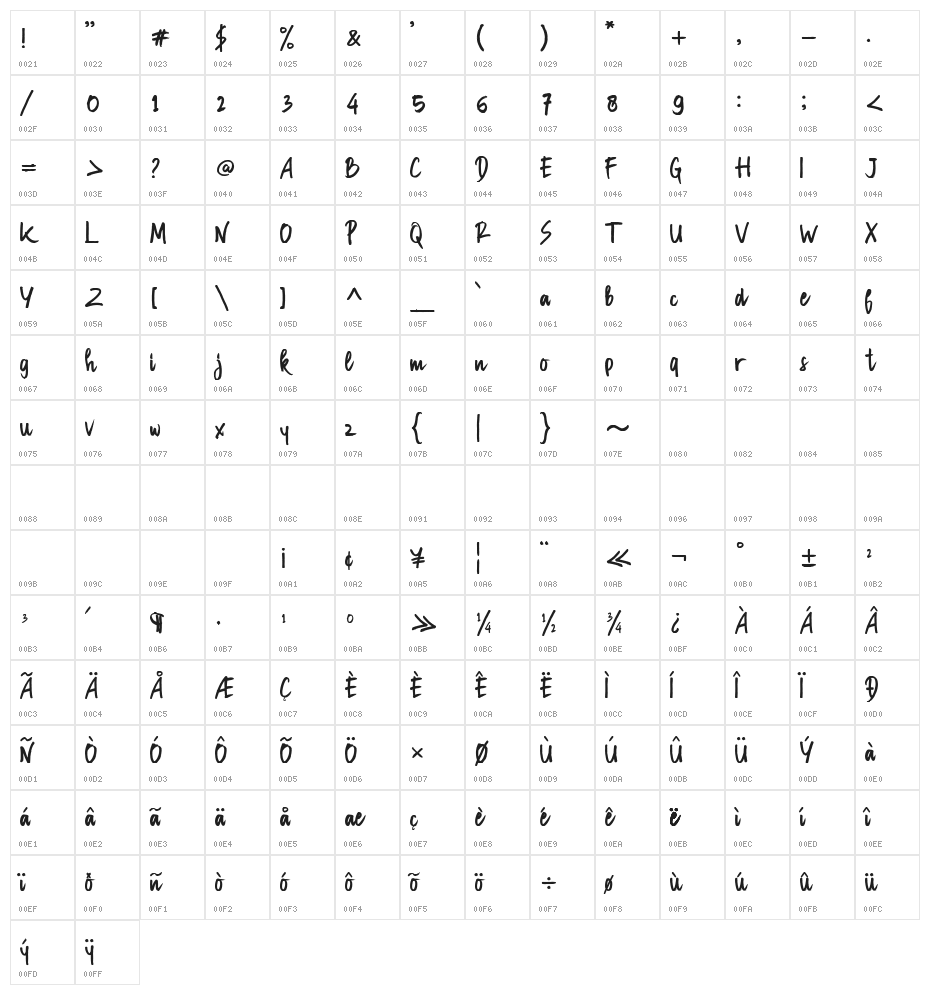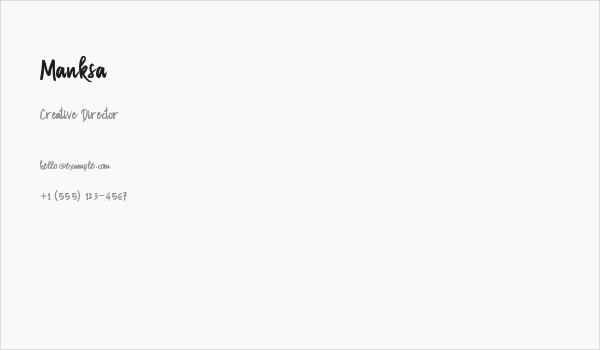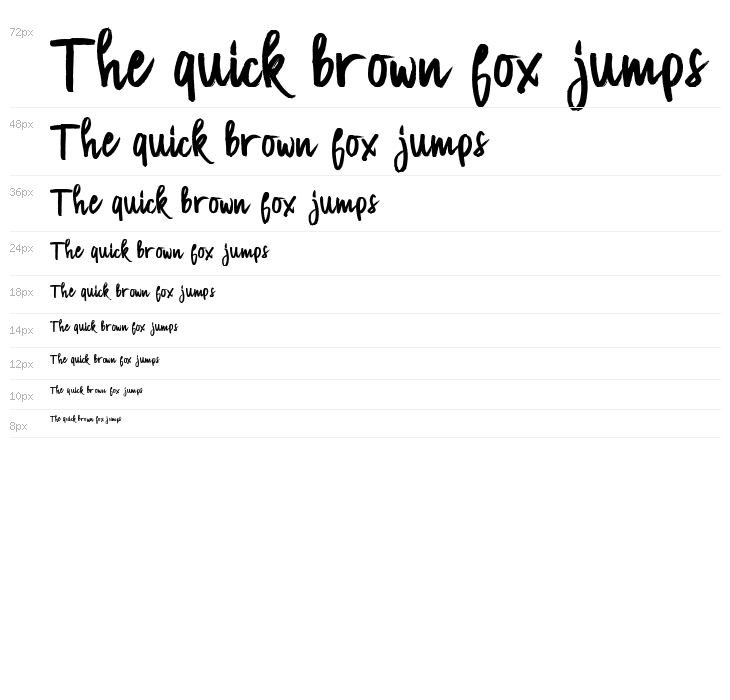
Manksa Font
Manksa Description
This font features a lively and expressive handwritten style, characterized by its bold and dynamic strokes. The uppercase letters are slightly irregular, giving a playful and informal feel, while the lowercase letters maintain a consistent flow with a touch of whimsy. The numbers are clear and legible, matching the overall energetic vibe of the font. Special characters are creatively designed, adding to the font's unique personality. This font is perfect for projects that require a personal and friendly touch, such as invitations, greeting cards, or creative branding.
Proposed ProjectsIdeal for invitations, greeting cards, creative branding, and personal projects.